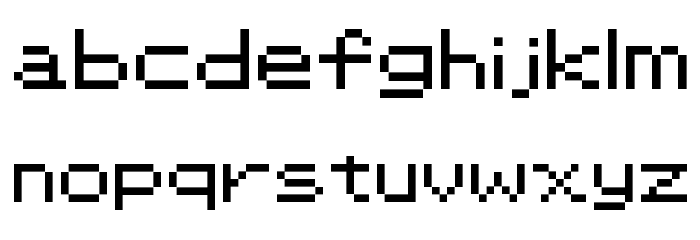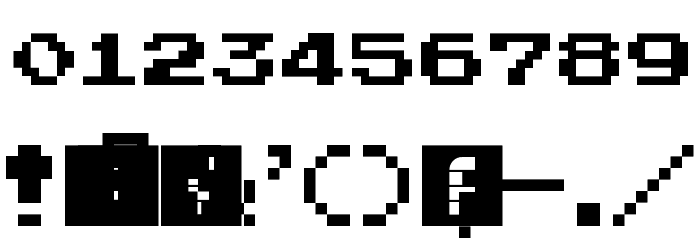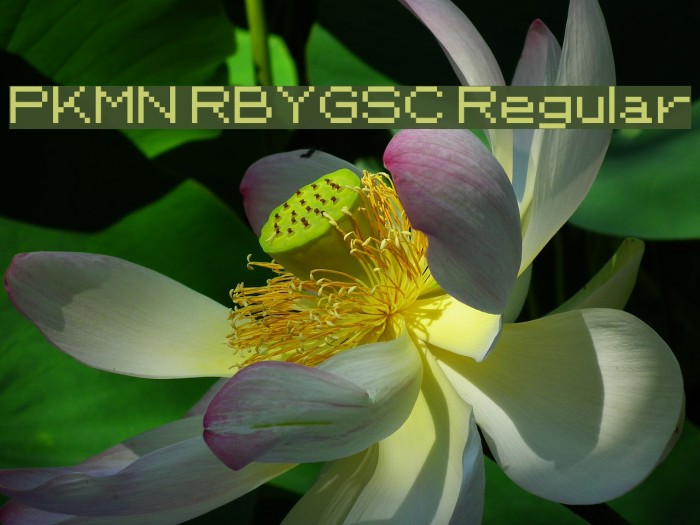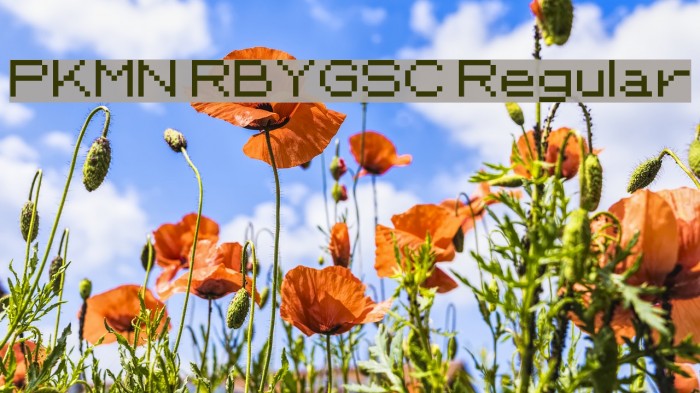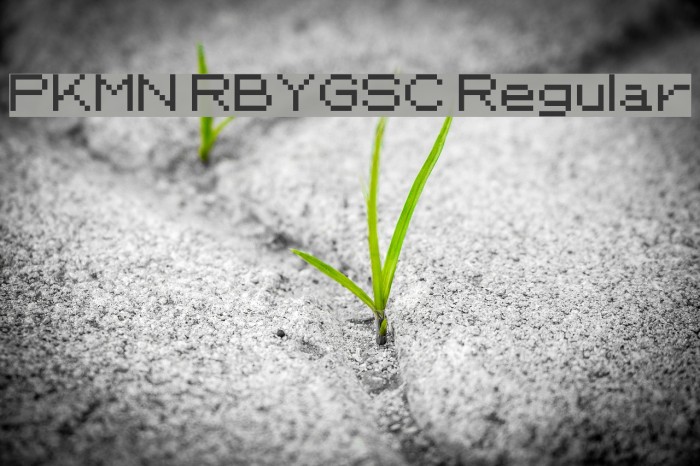
PKMN RBYGSC Regular Font
This font features a pixelated, retro style reminiscent of early video game graphics. Each character is composed of small, square blocks, giving it a distinctly digital appearance. The uppercase and lowercase letters maintain a consistent height, contributing to a uniform look. The numerals and special characters are similarly designed, ensuring a cohesive aesthetic throughout. This font evokes a sense of nostalgia, ideal for projects that aim to capture the essence of classic gaming or digital art. Its simplicity and clarity make it suitable for both display and text purposes, although it shines best in larger sizes where its pixelated charm can be fully appreciated.
A pixelated, retro-style font inspired by early video game graphics.
- Proposed Projects: Perfect for retro video game designs, digital art projects, and nostalgic branding.
- Overall Style: Vintage
- Use Case: Headlines, Logos, Display text